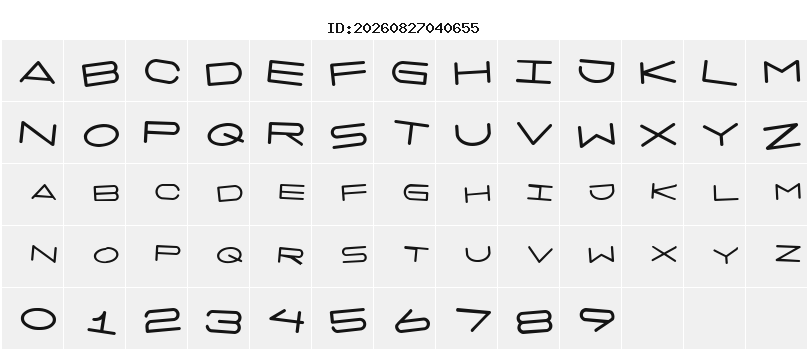
• Font Name: 7 days rotated
About 7 days rotated.ttf
7 days rotated.ttf is a modern, elegant sans-serif font designed for ultimate readability and visual harmony. Perfect for branding, headlines, web design, and print materials.